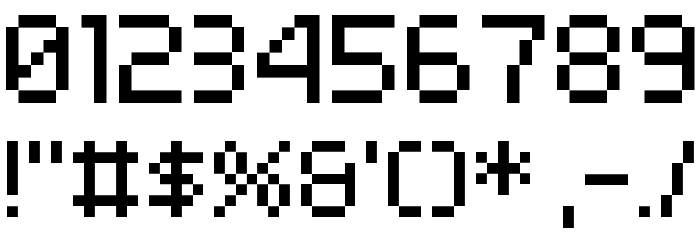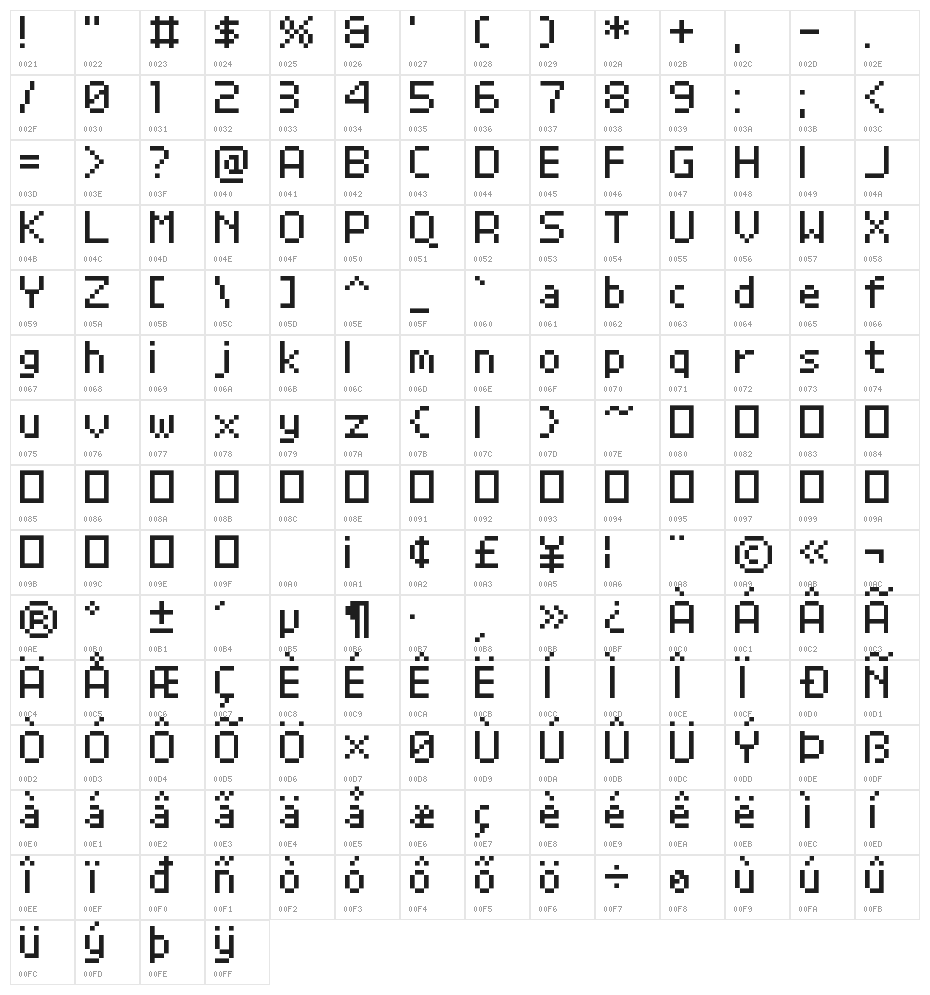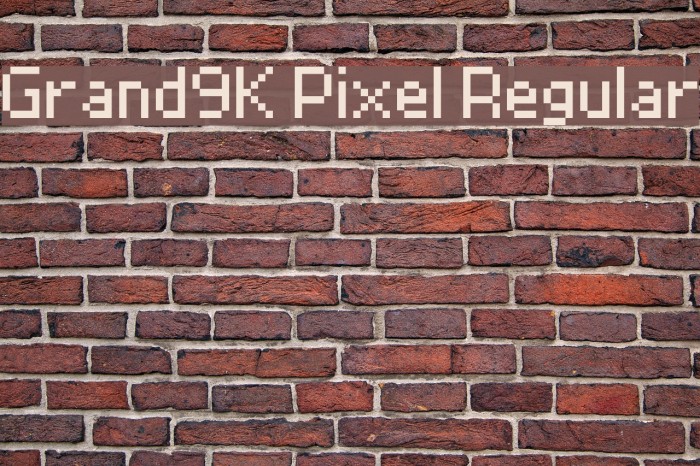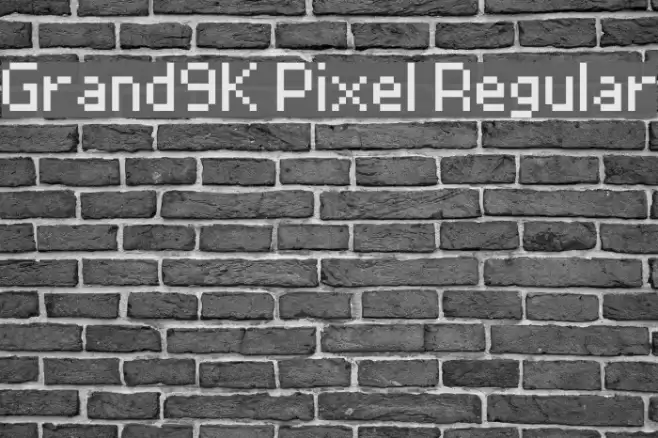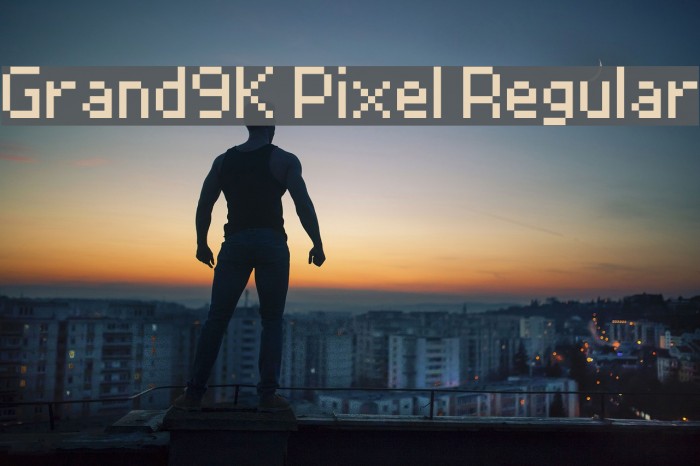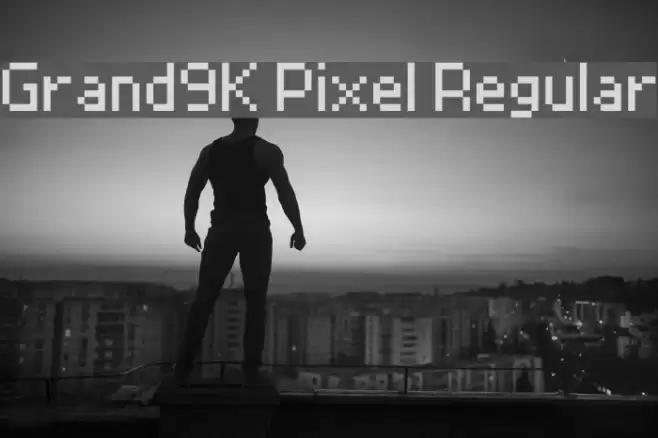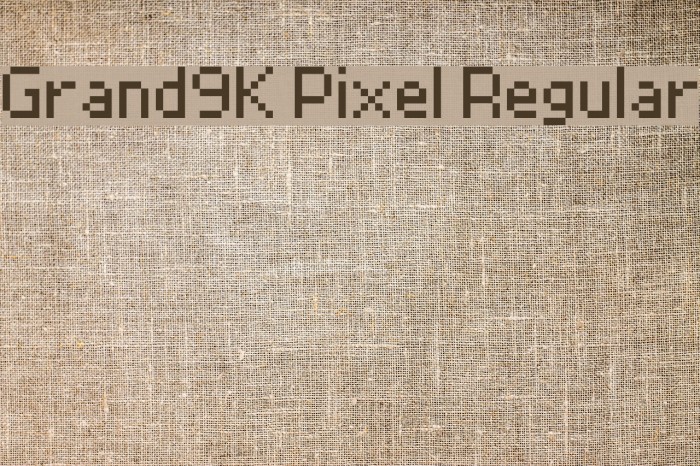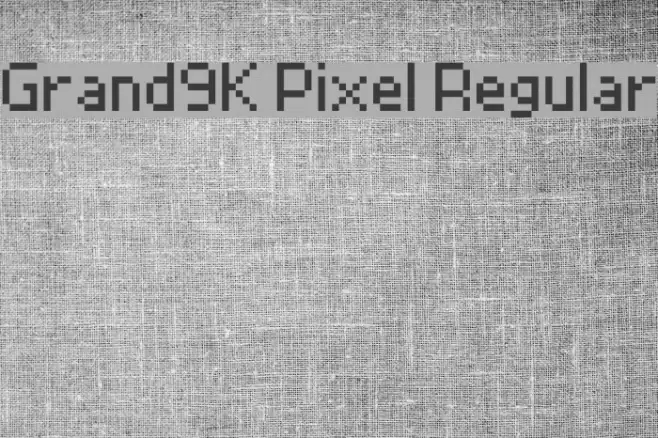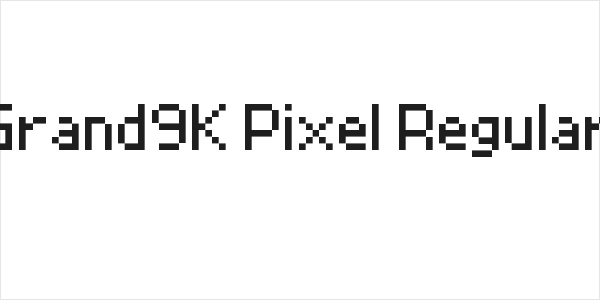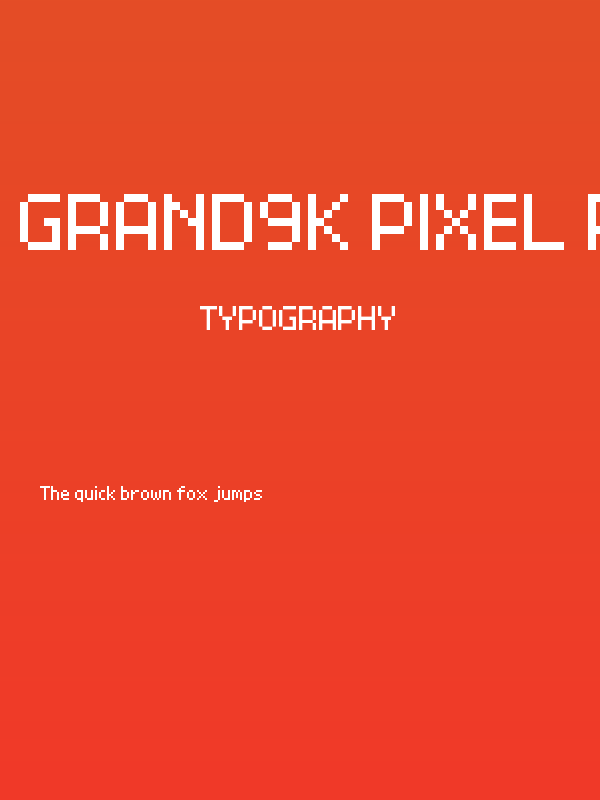
Grand9K Pixel Regular Font
Grand9K Pixel Regular Description
This font features a pixelated, blocky design reminiscent of early digital displays and retro video games. Each character is constructed with a grid-like precision, giving it a distinctly digital and geometric appearance. The uniformity in stroke width across all characters contributes to its cohesive and structured look. The uppercase and lowercase letters maintain a consistent height, enhancing readability while preserving the pixelated aesthetic. Numbers and special characters are designed with the same pixel grid, ensuring a harmonious visual style throughout the character set. This font's nostalgic charm makes it ideal for projects that aim to evoke a sense of retro digital culture.
| Use Case | Headlines, Logos, Digital Art |
| Proposed Projects | Ideal for video game design, digital art projects, retro-themed websites, and tech-inspired branding. |